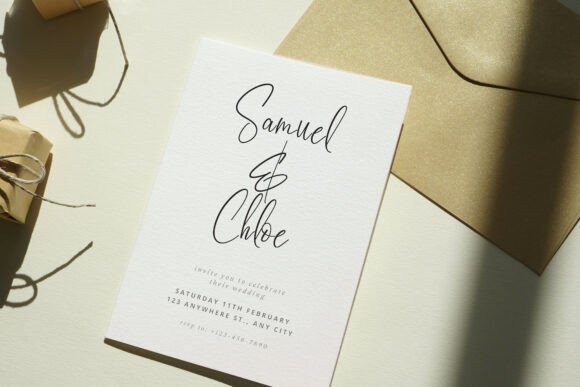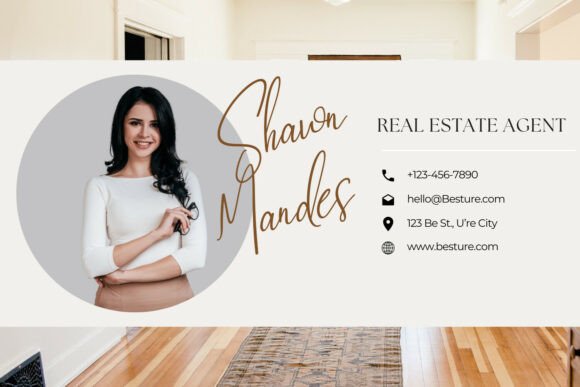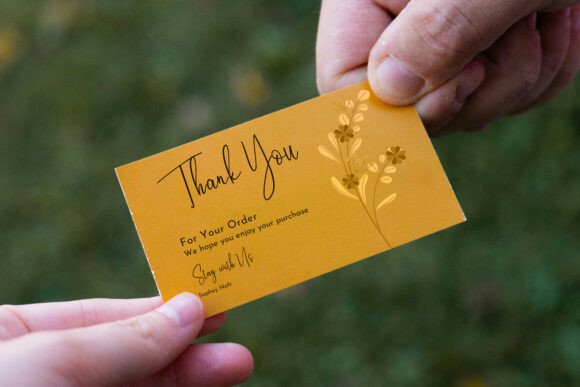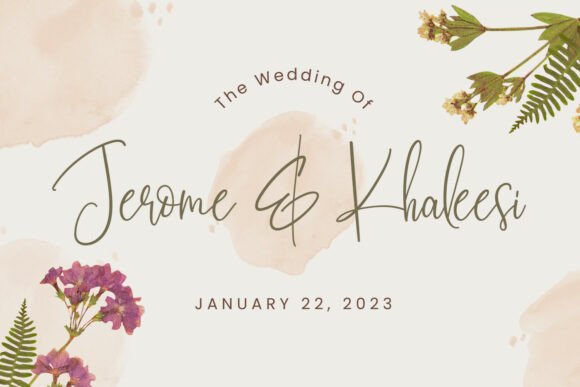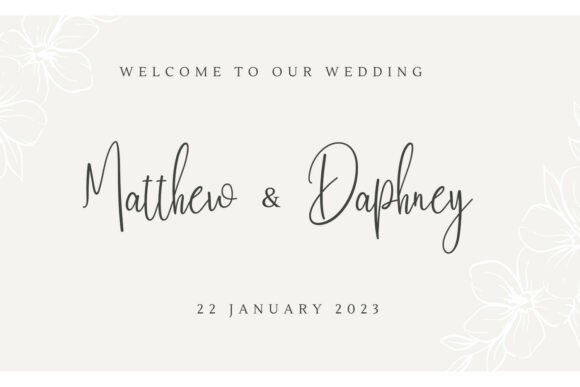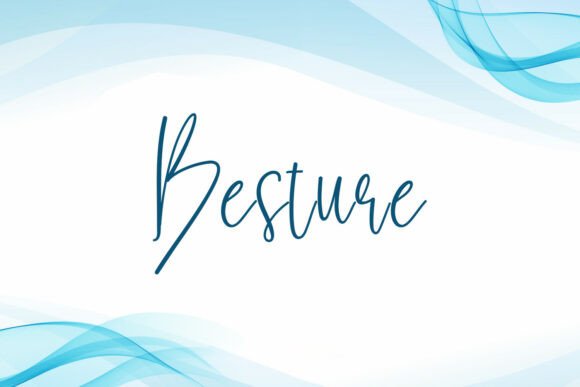
Discover the Charm of Besture Font: Elevate Your Designs with Elegance and Personality
In the world of typography, few fonts manage to capture the essence of handwriting while exuding modern simplicity. Besture Regular, a captivating handwriting font, achieves this delicate balance effortlessly. Crafted with meticulous attention to detail, each letter in Besture Regular reflects the natural flow and spontaneity of authentic handwriting, making it a versatile and elegant choice for designers and crafters alike.
The Art of Elegant Simplicity
Besture Regular embodies an understated elegance that makes it suitable for a myriad of design applications. From formal invitations and wedding cards to branding projects and business communications, this font adds a touch of sophistication and personality. Its smooth and well-balanced strokes create a seamless rhythm, making it not only visually appealing but also exceptionally legible.
The Authentic Handwritten Feel
One of the standout features of Besture Regular is its authentic handwritten feel. With its organic strokes and fluid connections between letters, this font brings the charm of genuine handwriting to digital and print materials. This quality makes it an excellent choice for designers looking to add a personal touch to their work, whether it’s for a client’s branding project or a personal craft.
Versatile Usage for Diverse Projects
The versatility of Besture Regular is one of its most compelling attributes. Whether used for personal projects, business communications, or creative endeavors, this font adds a personalized touch that enhances the overall aesthetic. Designers can use Besture Regular for:
- Wedding invitations and event cards
- Branding projects and logos
- Business communications and marketing materials
- Personal crafts and DIY projects
- Blogging and digital content creation
Ligatures for Fluidity and Readability
Besture Regular includes thoughtful ligatures that enhance the fluidity and readability of the font. These ligatures ensure that the connections between letters appear natural and smooth, further amplifying the font’s handwritten feel. This attention to detail makes Besture Regular not only beautiful but also highly functional.
Why Choose Besture Font?
For designers and crafters looking for a font that combines elegance, personality, and versatility, Besture Regular is an excellent choice. Here are a few reasons why:
- Elegant yet Simple: Besture Regular offers an elegant appearance without being overly ornate, making it suitable for a wide range of projects.
- Authentic Handwritten Look: The font’s organic strokes and fluid connections give it a genuine handwritten feel that sets it apart from more conventional fonts.
- Versatile: From formal to casual projects, Besture Regular adapts seamlessly, providing a personalized touch.
- Legible: Despite its handwritten nature, Besture Regular is exceptionally legible, making it suitable for both digital and print applications.
| Font Name | Besture Font |
| Author | sopheynoft |
Besture Regular is more than just a font; it’s a design element that can elevate your projects with its elegance, personality, and versatility. Whether you’re a designer working on a client’s branding or a crafter making personalized gifts, Besture Regular offers the perfect blend of modern simplicity and artistic flair. With its authentic handwritten feel, thoughtful ligatures, and wide range of applications, Besture Regular is sure to become a staple in your typographic arsenal.